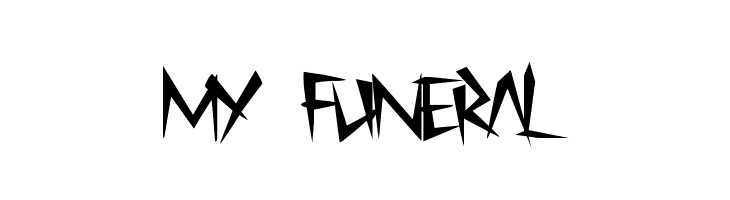
A bold, graffiti-inspired font with sharp, angular lines.
A bold, high-contrast serif font with angular serifs and a modern flair.
A bold, geometric font with Art Deco influences, ideal for impactful designs.
A bold, handcrafted font with a rugged, organic appearance.
A bold, geometric font with a futuristic and tech-inspired design.
A bold, italic handwritten font with a casual and personal style.